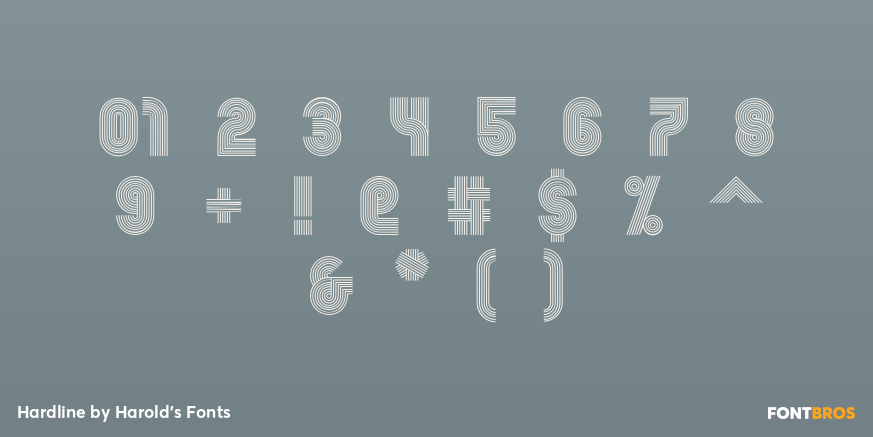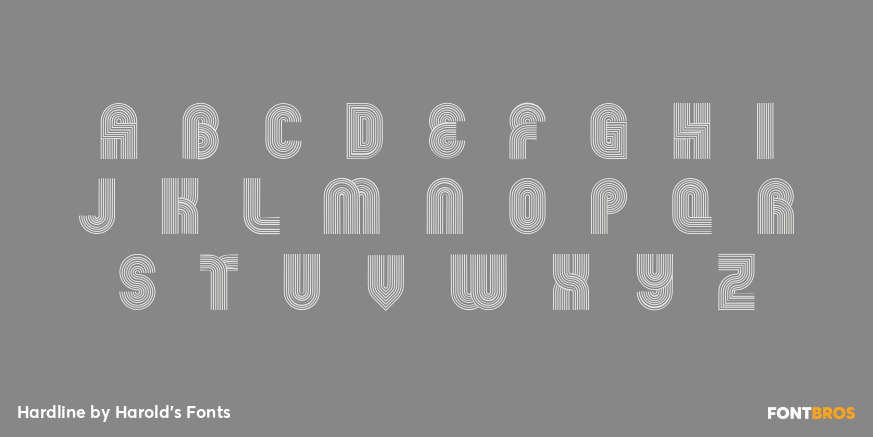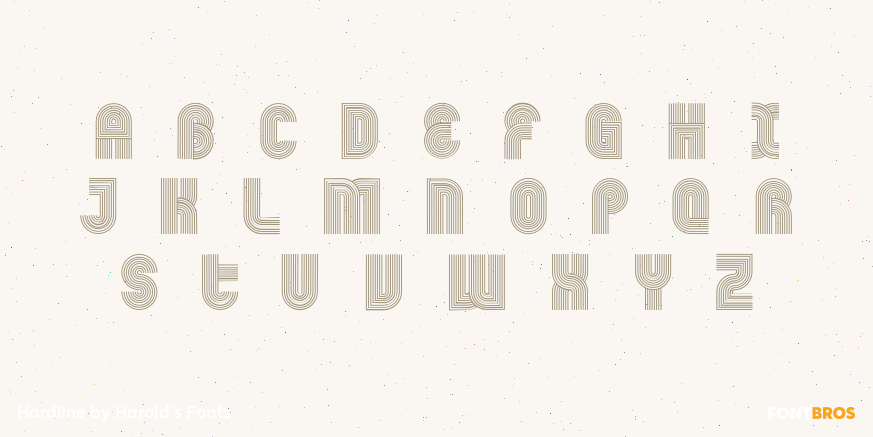
Hardline
Font Family by Harold's Fonts
HARDLINE is an Op Art font with a groovy, 60s/70s vibe: all geometric forms composed of parallel lines. It was inspired by just 2 letters I found on an envelope, and I expanded it from there. This font is really fun when it’s used big and kerned so tightly (or layered) that the letters overlap, creating cool moiré patterns. I’ve included a number of alternate letter forms in the lowercase positions for greater flexibility.